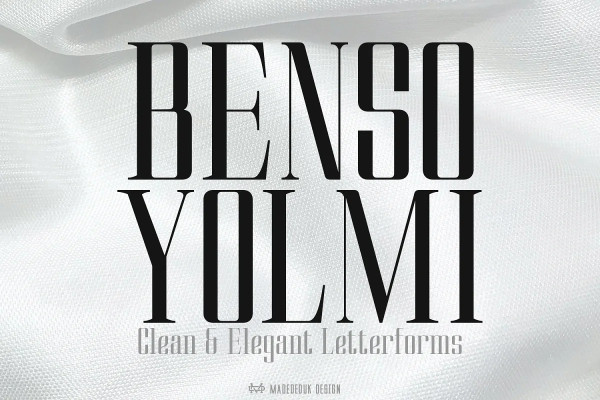
Benso Yolmi Font
Benso Yolmi Font is a clean and modern minimalist serif font designed for clarity and simplicity. With its sleek lines and balanced letterforms, it conveys a timeless elegance that suits a wide range of applications.